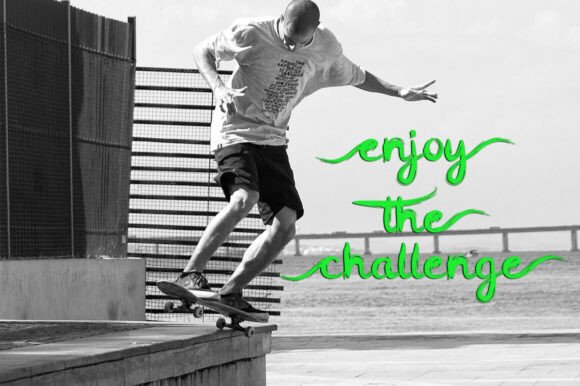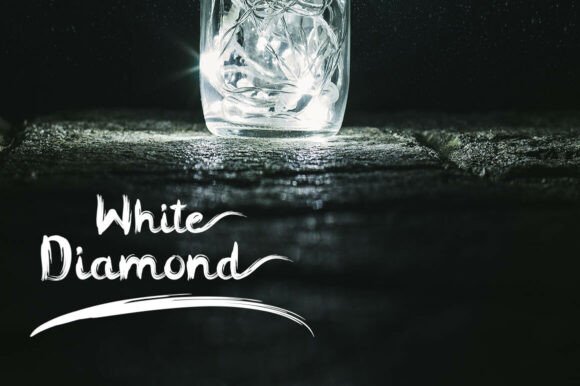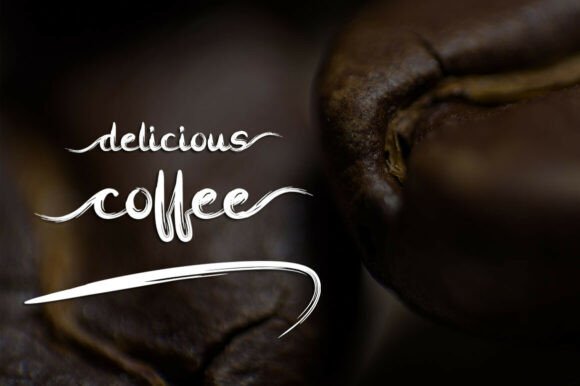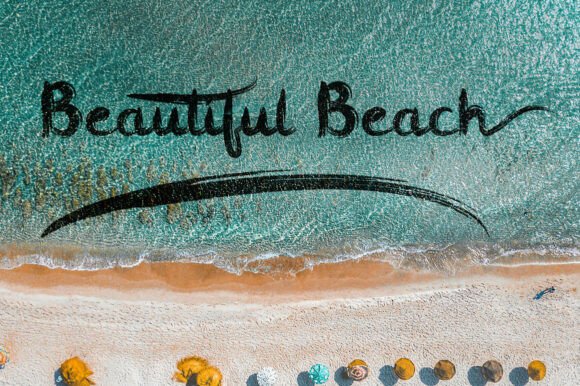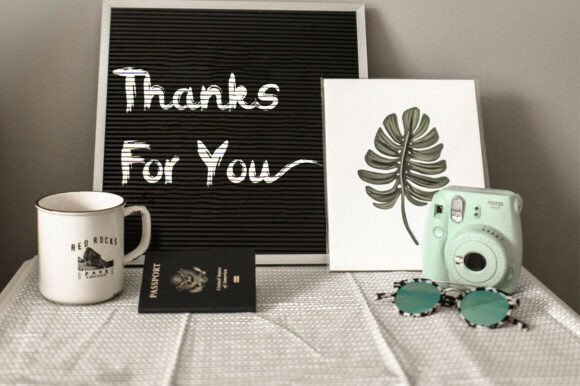
Introducing Contania Font: A Fresh and Modern Script Font for Luxurious Designs
Are you looking for a font that can add a touch of elegance and sophistication to your designs? Look no further than Contania Font, a fresh and modern script font that is perfect for creating luxurious designs. With its decorative characters and dancing lineage, Contania Font is sure to make your designs stand out from the crowd.
What Makes Contania Font Special?
Contania Font is a feature-rich font that comes with 608 glyphs, including alternate characters that are divided into several Open Type features such as Swash, Stylistic Sets, Stylistic Alternate, and Contextual Alternate. These features make it easy to create unique and creative designs that are sure to impress. The font also has a code PUA unicode, which allows designers to easily access all alternative characters.
Key Features of Contania Font
- 608 Glyphs: Contania Font comes with a large number of glyphs, including uppercase and lowercase letters, international signature and symbol, punctuation, and more.
- PUA Unicode: The font has a code PUA unicode, which allows designers to easily access all alternative characters.
- Alternate Characters: The font includes several alternate characters, including stylistic alternates, contextual alternates, and more.
- Support for Multiple Languages: Contania Font supports multiple languages, making it a great choice for designers who work with clients from around the world.
Tips for Getting the Most Out of Contania Font
- Experiment with Different Features: Don’t be afraid to try out different features of the font, such as swashes and stylistic alternates, to create unique and creative designs.
- Use it for Luxurious Designs: Contania Font is perfect for creating luxurious designs, such as branding, packaging, and advertising materials.
- Pair it with Other Fonts: Contania Font can be paired with other fonts to create interesting and dynamic designs.
Contania Font is a fresh and modern script font that is perfect for designers and crafters who want to create luxurious designs. With its decorative characters, dancing lineage, and feature-rich design, Contania Font is sure to make your designs stand out from the crowd. Whether you’re a seasoned designer or just starting out, Contania Font is a great choice for anyone looking to add a touch of elegance and sophistication to their designs.